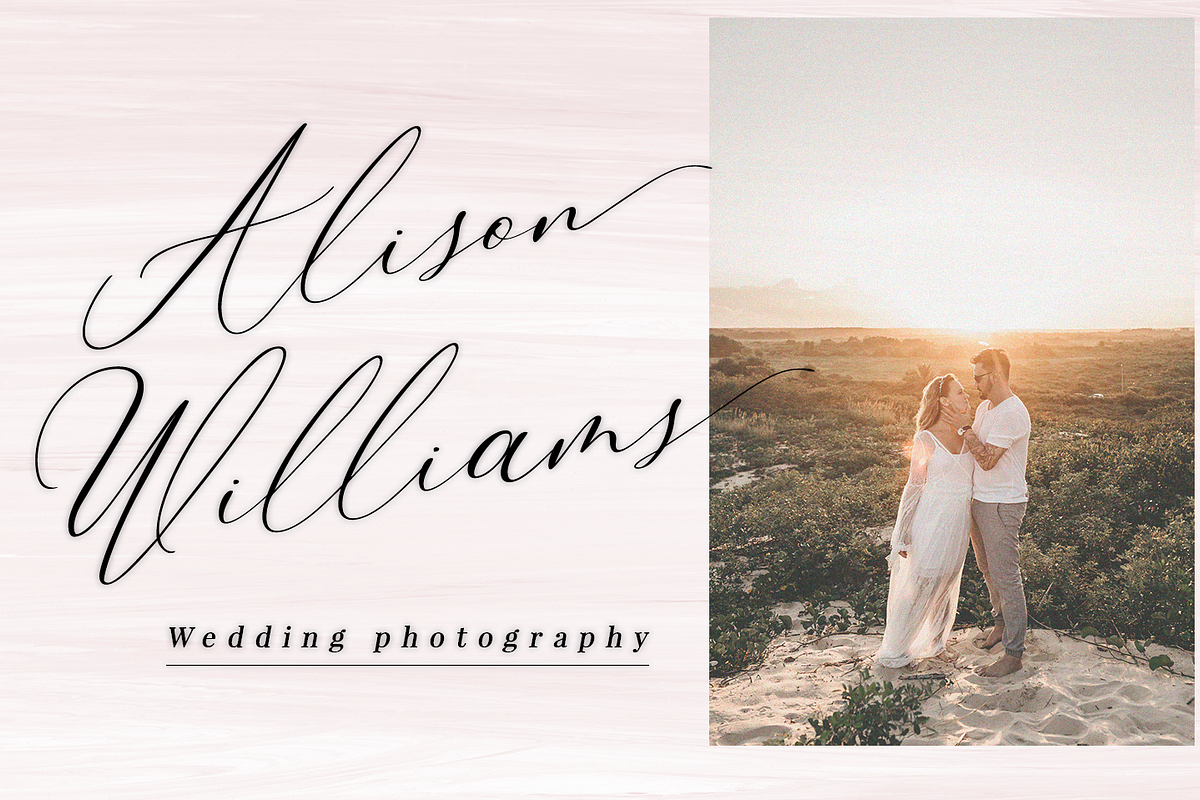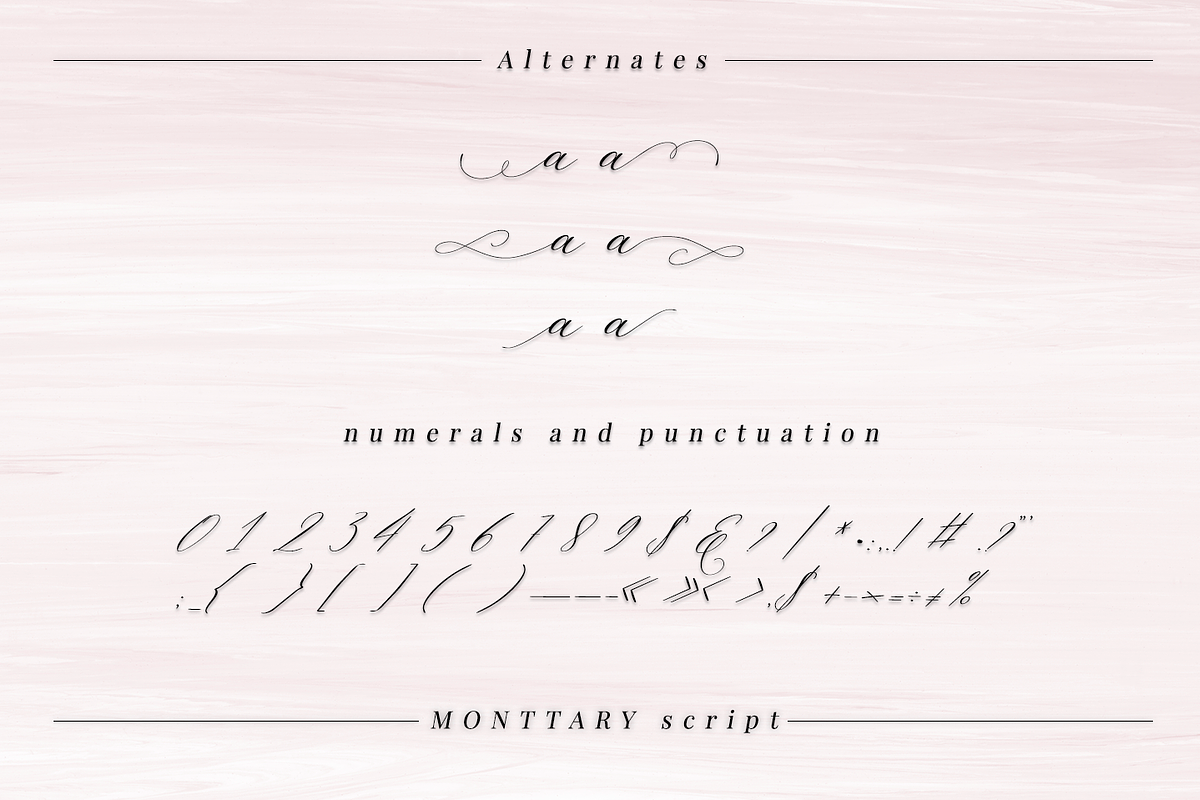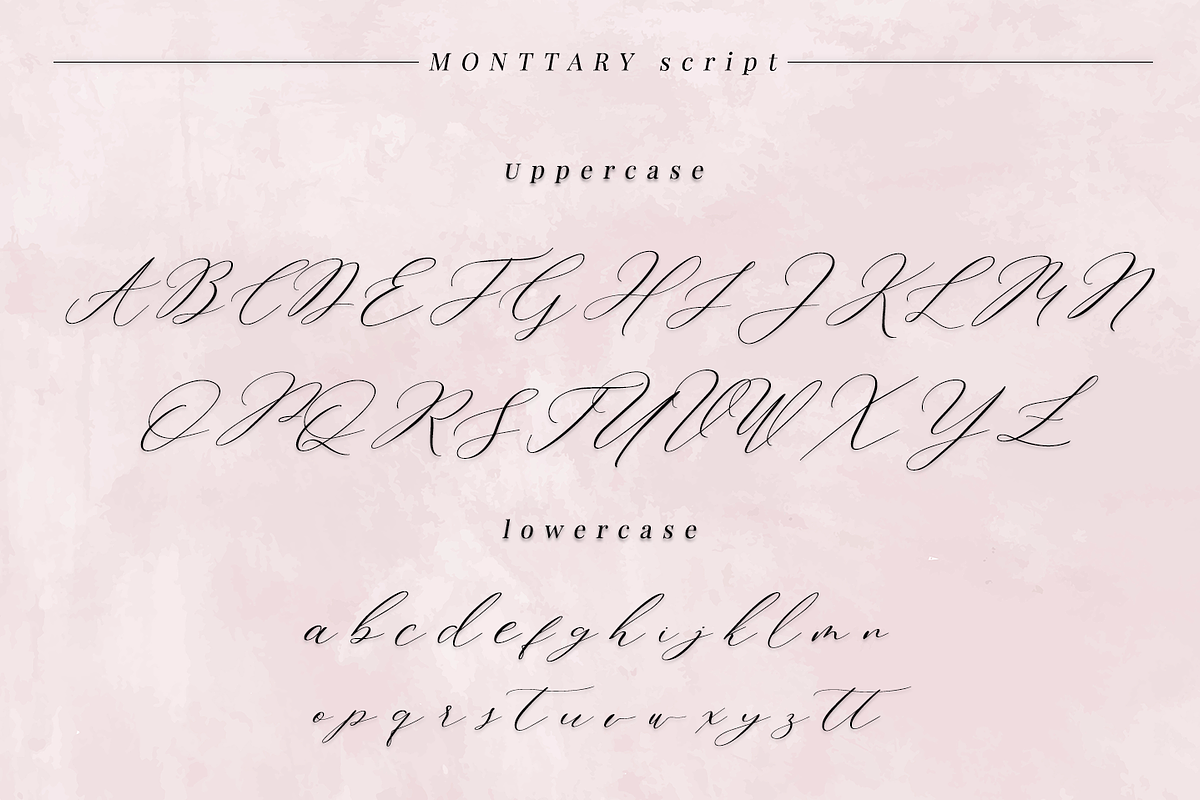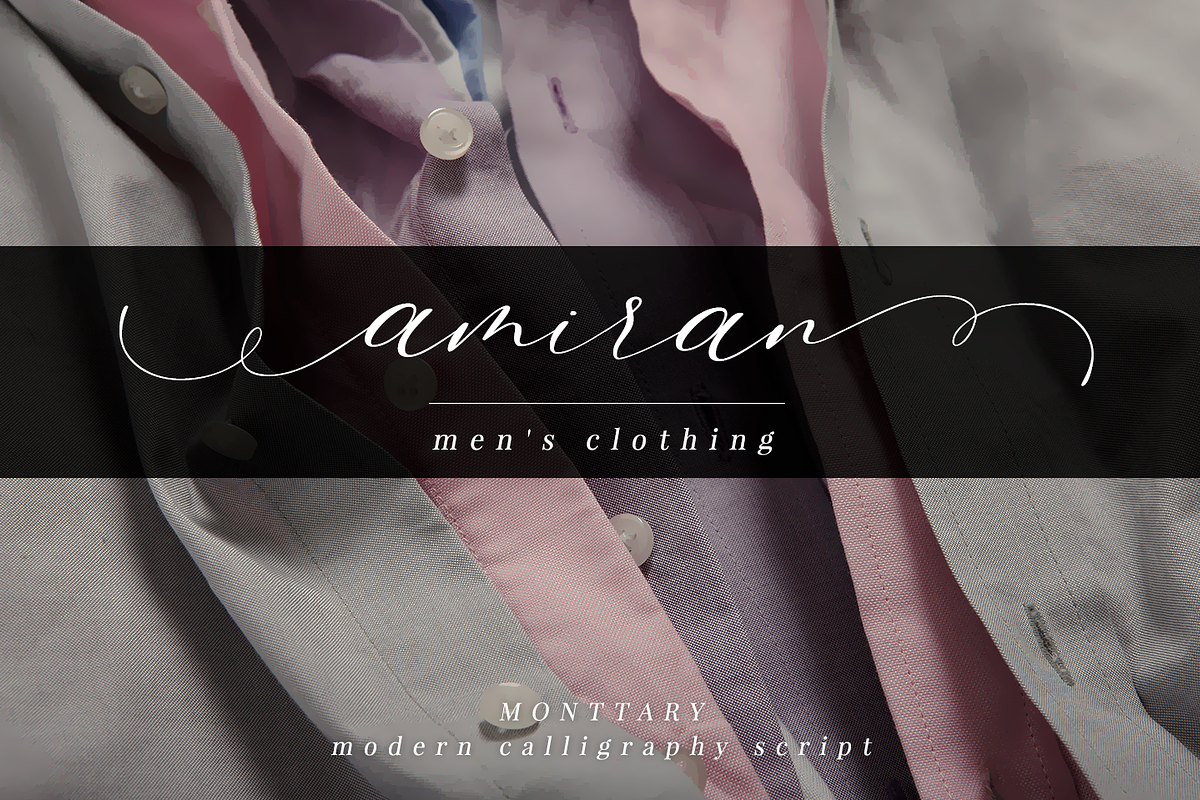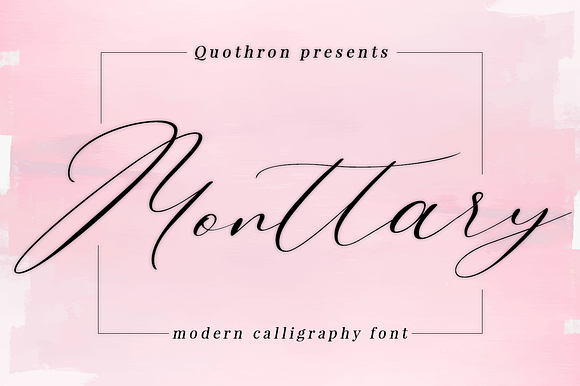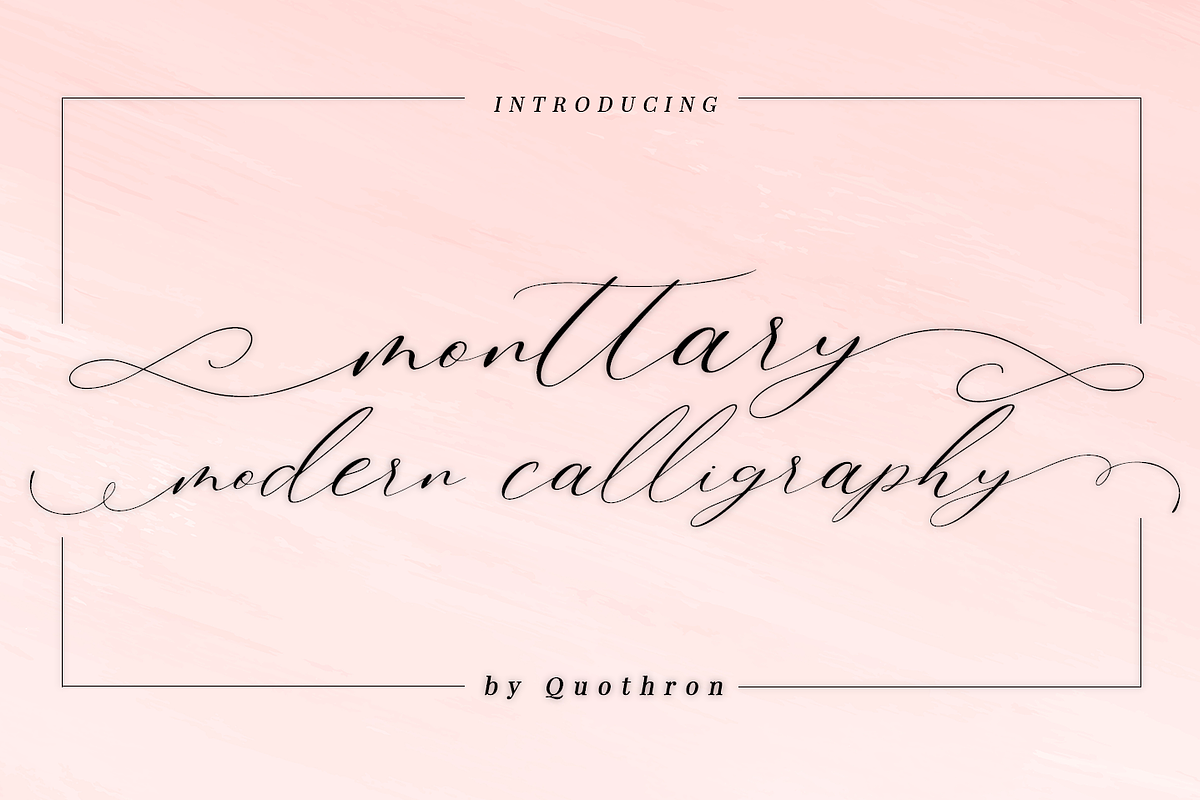
Monttary - Modern calligraphy font
Monttary - a new fresh handmade calligraphy font.
Very suitable for greeting cards, branding materials, business cards, quotes, posters, and more!This font are perfect for wedding postcard. Or you can create perfect and unique design of your logo, blog, stationery, marketing, magazines and more :)